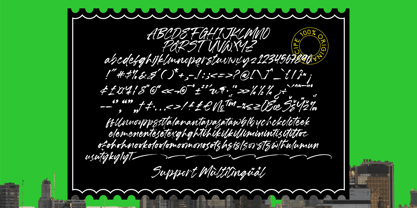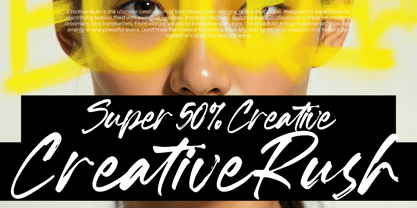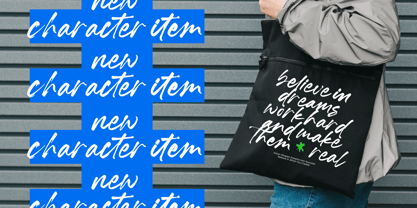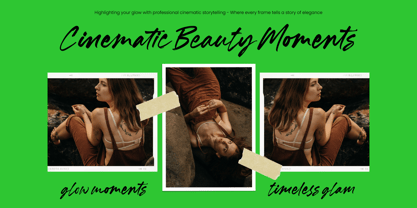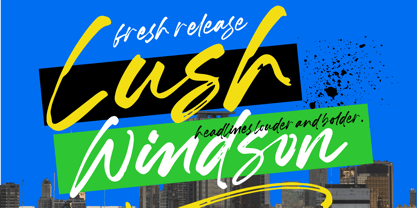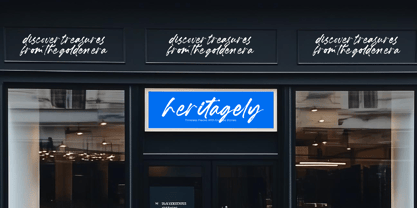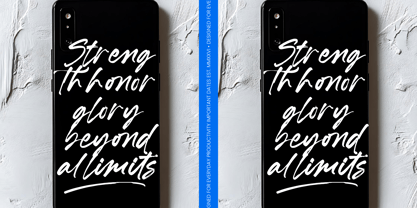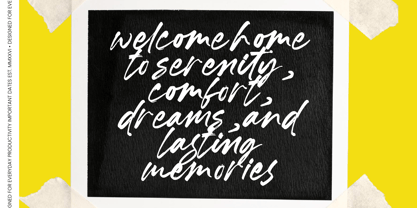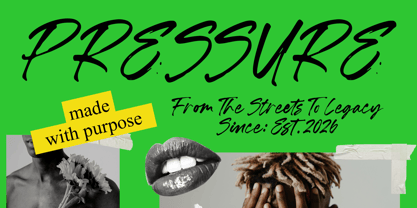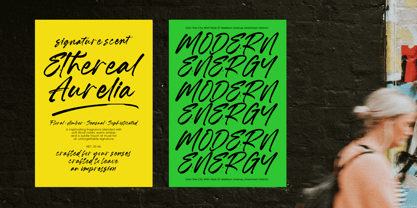
Lush Windson
The Lush Windson Font Family was designed by Heru Utama Putra and published by Letterena Studios. Lush Windson contains 2 styles and family package options. More about this family
Lush Windson - Display Brush Font
Unleash the power of raw, handwritten energy with Lush Windson - Display Brush Font. This expressive brush typeface captures a sense of urban movement and authentic texture, making it an essential tool for designers seeking to make a bold statement. Its fluid strokes and organic rhythm create an impactful visual identity that demands attention in any commercial design or digital media environment.